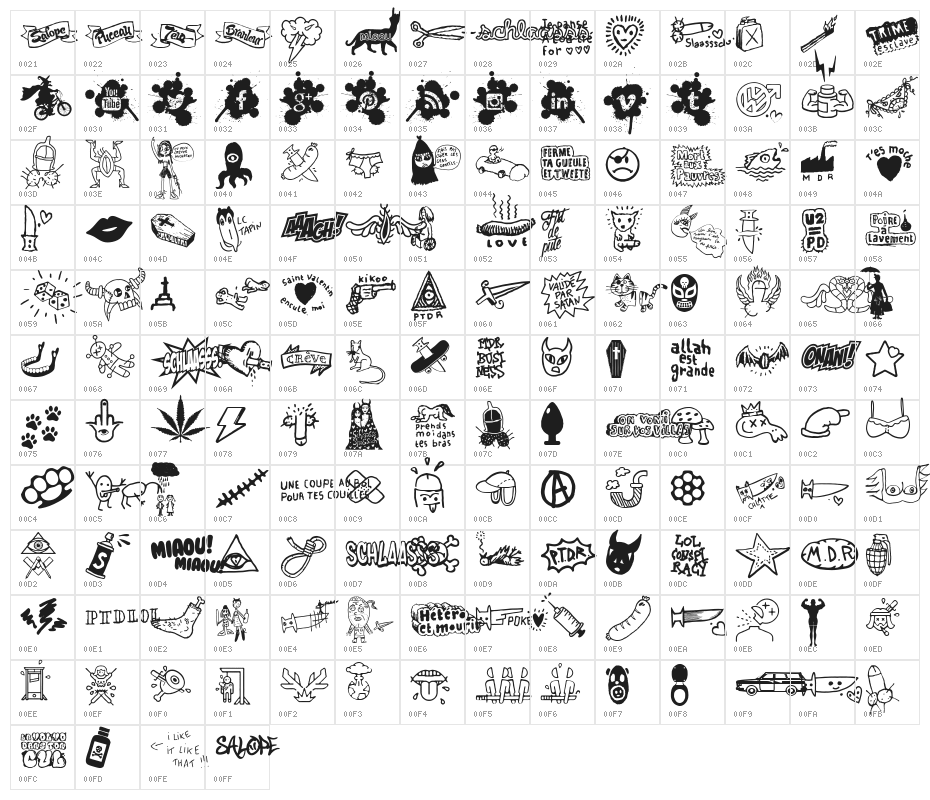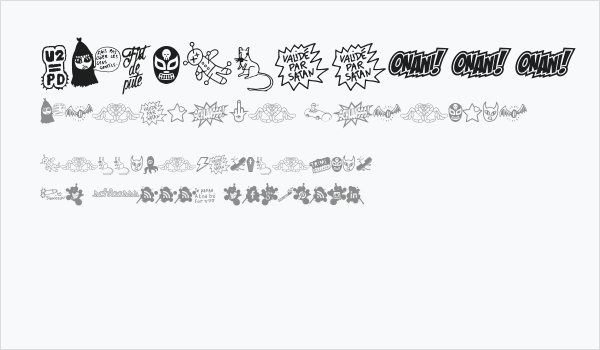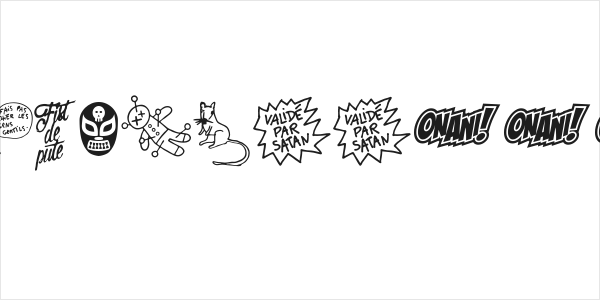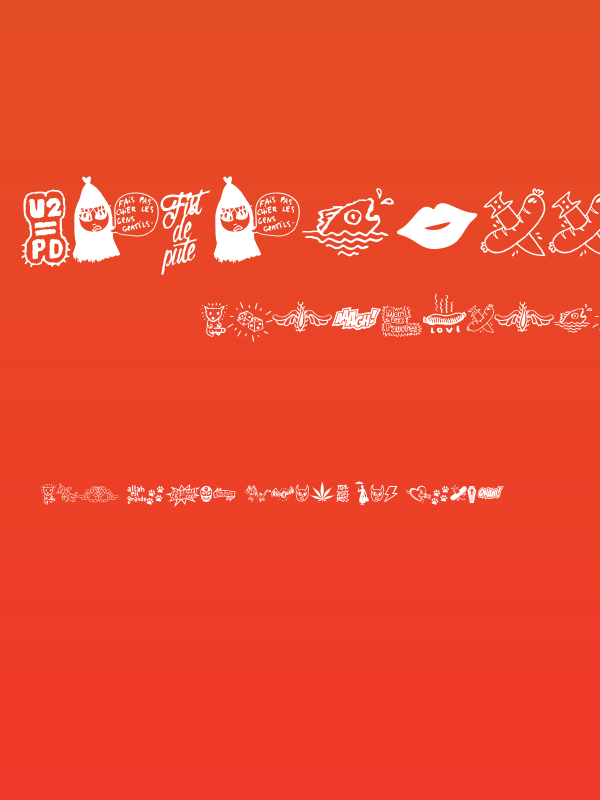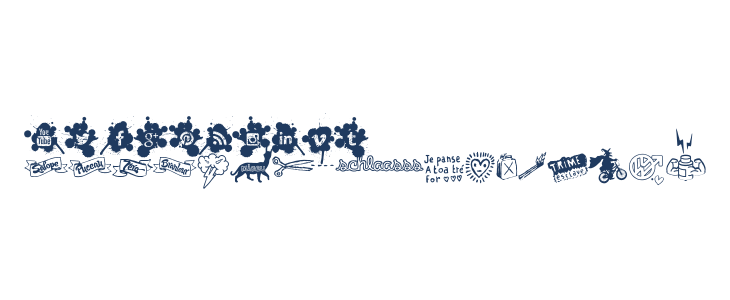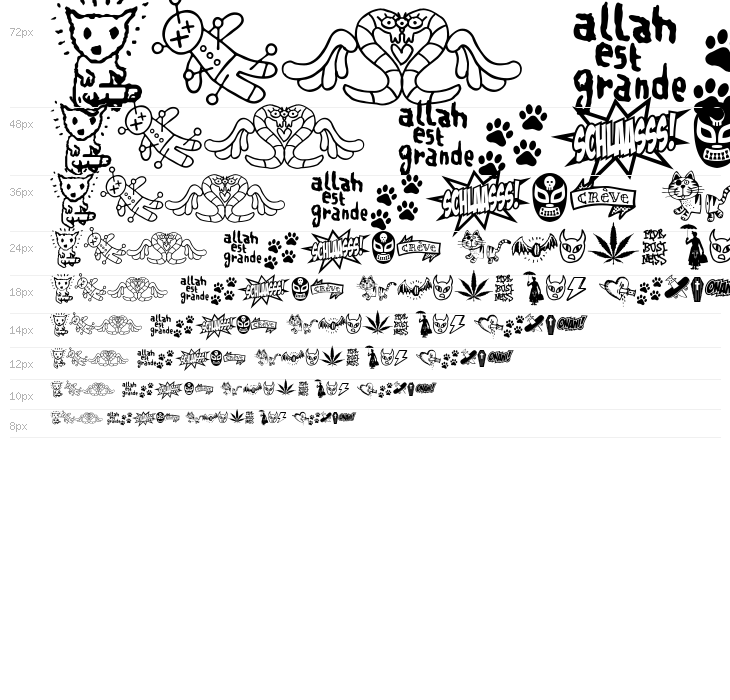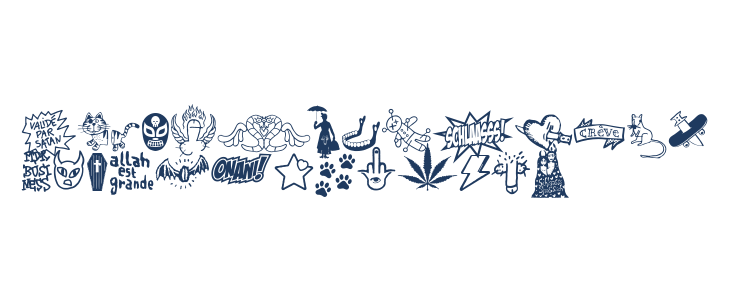
WCSchlaasss Font
WCSchlaasss Description
A highly decorative and eclectic dingbat font featuring a wide variety of hand-drawn illustrations, comic-style text, symbols, and playful icons. The glyphs include cartoonish drawings, expressive faces, pop culture references, and bold graphic elements, all rendered in a sketchy, informal style.
| Overall Style | Decorative, Playful, Comic, Hand-drawn |
| Use Case | Icons, Decorative accents, Themed graphics, Informal branding |
| Proposed Projects | Posters, zines, comic books, stickers, social media graphics, youth-oriented branding, event flyers. |